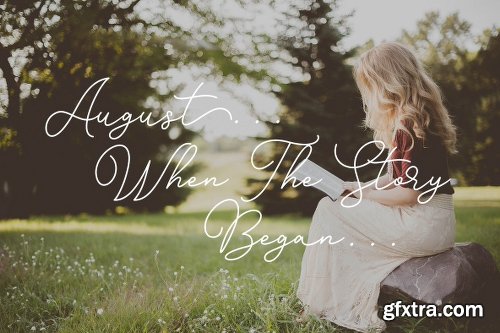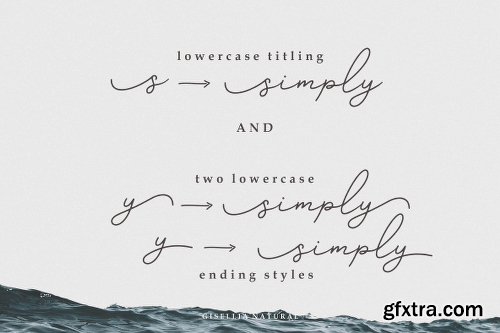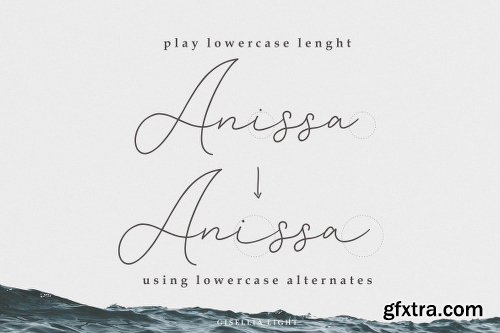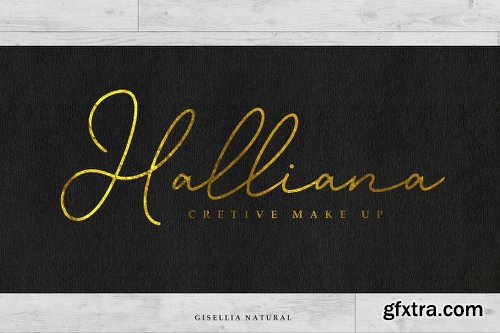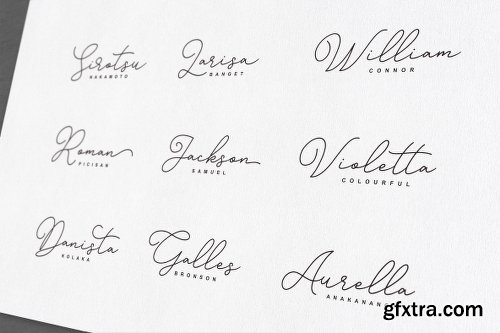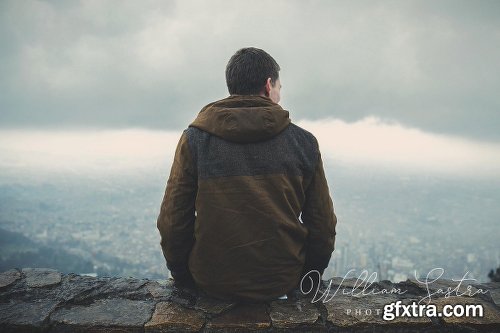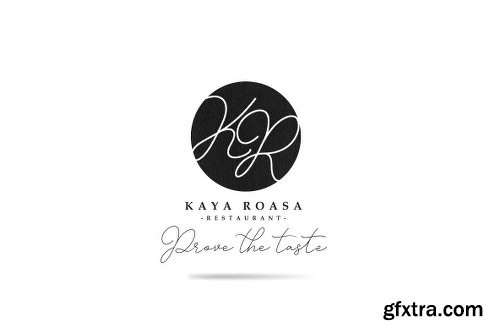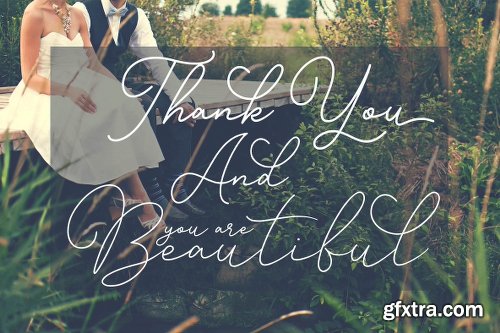
Gisellia Font Family
Introducing our new product called Gisellia. Gisellia is perfect for wedding invitation, signature, signature logo, photography, beauty poster, magazine, and any other design project.
Gisellia come with three styles (Regular, Natural, Light) . You can choose the styles according to what you need, ex : If you want to make natural signature, just use Gisella Natural.
Features :
Stylistic Alternate
Swash
Stylistic Set
Titling
Ligature
Multilingual Support